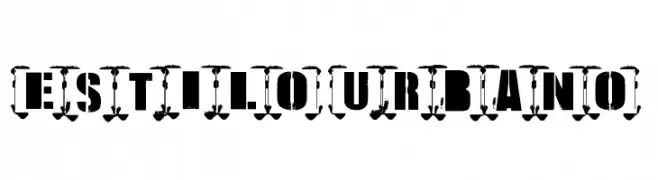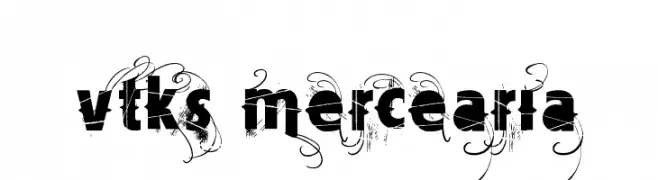
A bold, geometric font with a vintage industrial style.
A bold, geometric sans-serif font with a modern, monospaced appearance.
A bold, geometric font with a modern, industrial aesthetic.
A bold, geometric font with a modern, industrial style.
A modern, high-contrast serif font with tall, narrow letterforms and elegant serifs.
A playful, cartoonish font with character-like uppercase and fluid lowercase letters.
A modern, geometric sans-serif font with clean lines and uniform strokes.
A playful, handwritten font with bold, rounded strokes and a casual, dynamic style.
A bold, distressed font with a vintage, handcrafted look.
A bold, Western-style font with blocky, rugged characters.
A bold, Western-style font with thick, blocky characters and prominent serifs.
A classic, calligraphic font with elegant serifs and ornate lowercase letters.
An elegant serif font with swash elements and flowing curves.
A bold, geometric font with angular shapes and dynamic cut-out patterns.
A bold, distressed font with a vintage, grunge aesthetic.
A futuristic, geometric font with clean lines and a modern aesthetic.
A playful, hand-drawn font with wavy lines and a quirky, energetic style.
A bold, italic, hand-drawn font with a playful and dynamic style.
A bold, Gothic-inspired stencil font with sharp, angular edges.
A bold, gothic-inspired stencil font with sharp, angular lines and a medieval flair.
A Gothic-style font with a rough, distressed appearance and dynamic contrast.
A bold, distressed Gothic font with a hand-drawn, medieval appearance.
An ornate and decorative font with intricate double-line detailing.
A bold, decorative font with intricate detailing and a three-dimensional appearance.
An ornate and decorative font with intricate design elements.